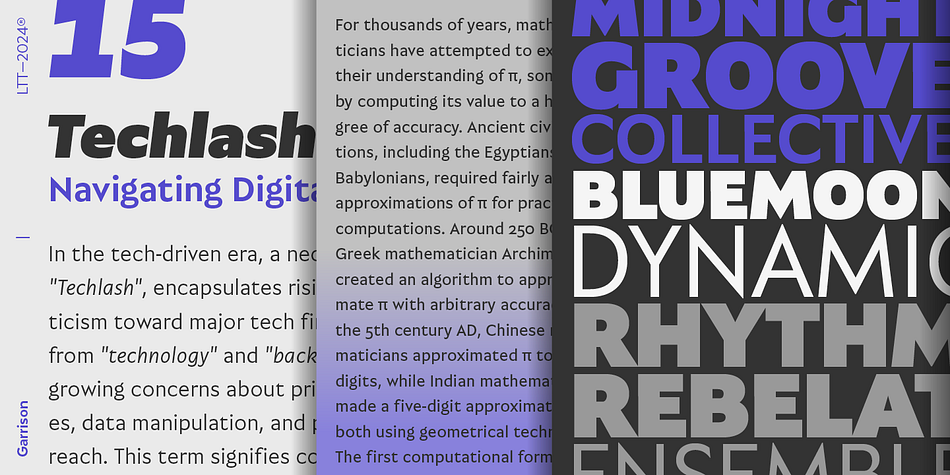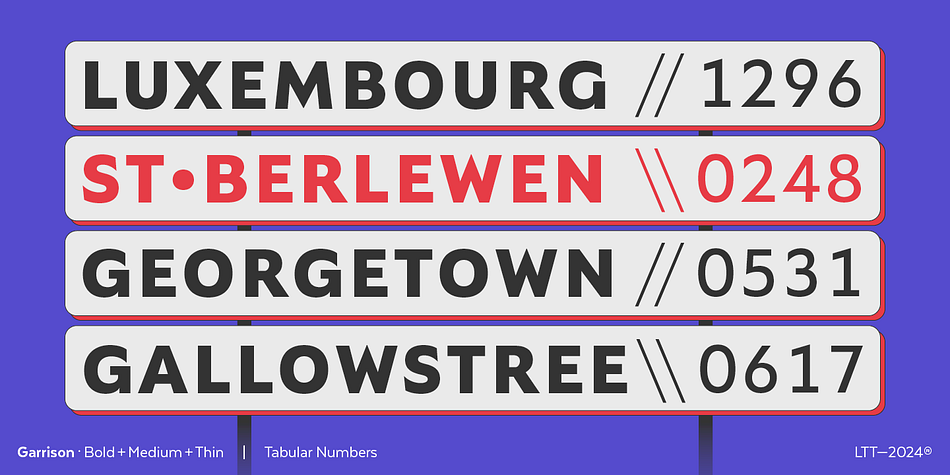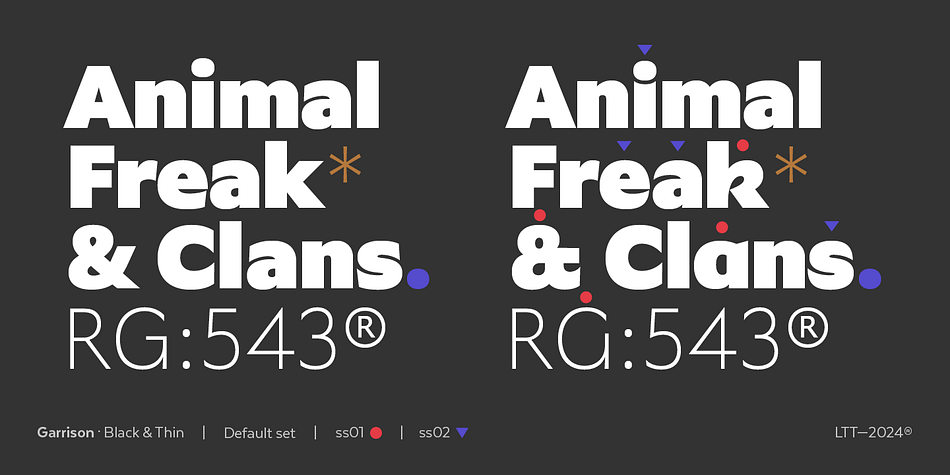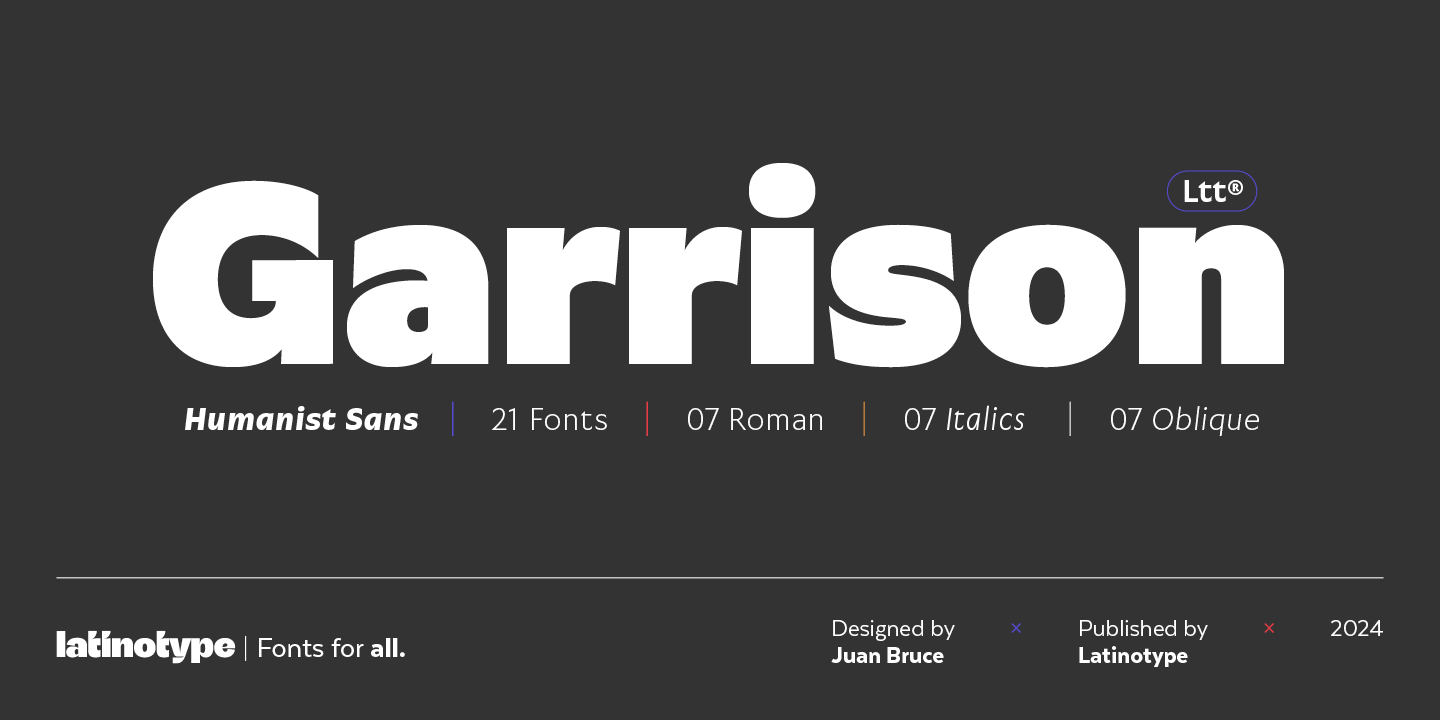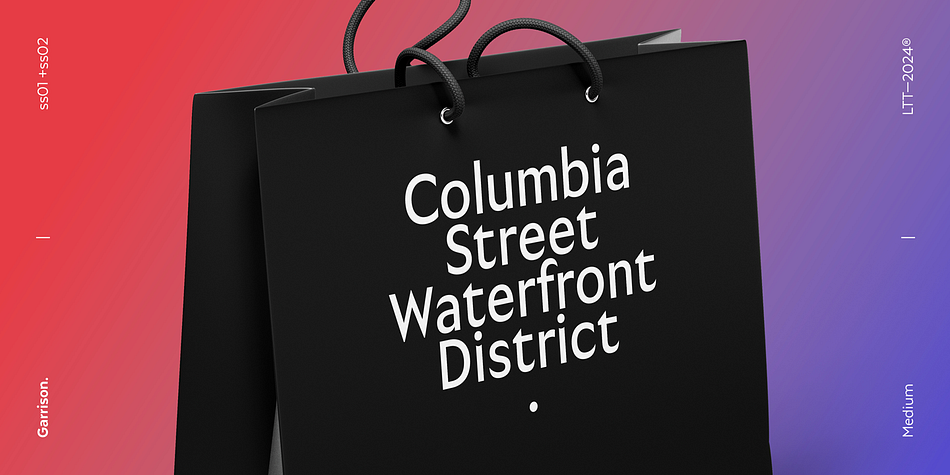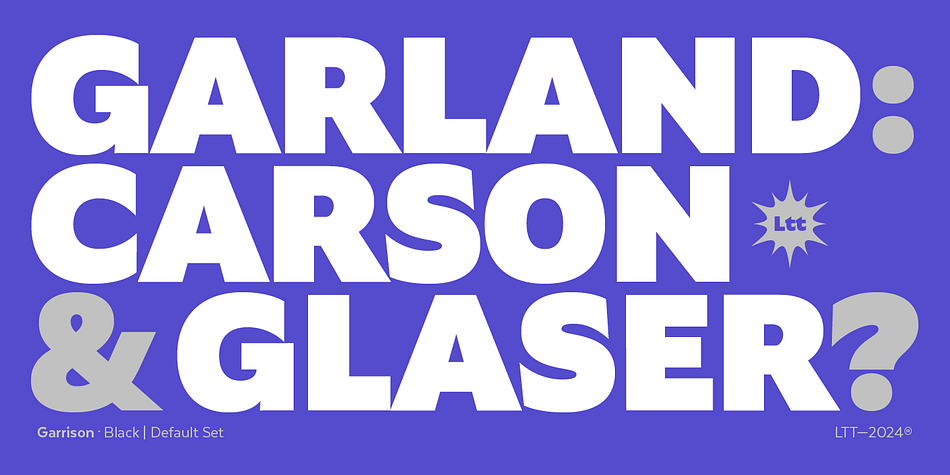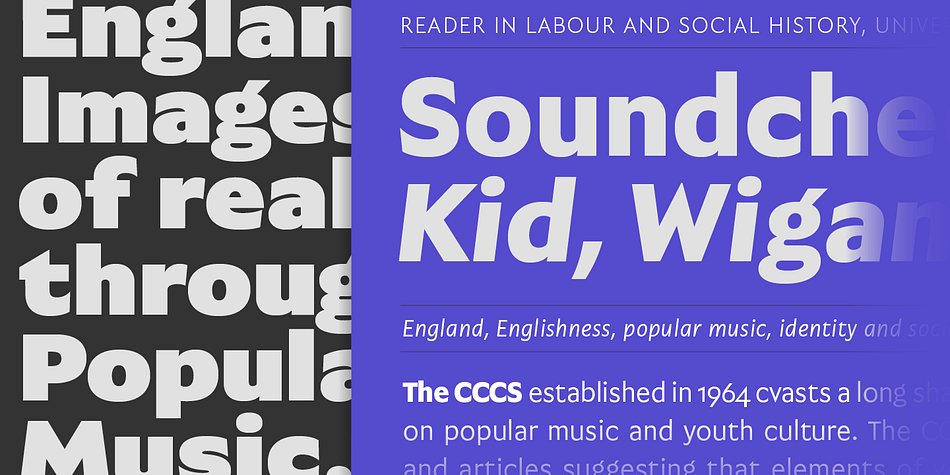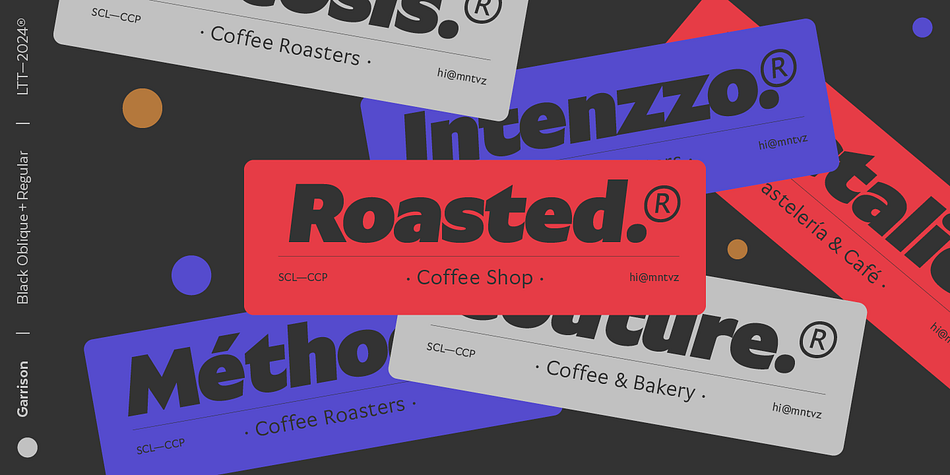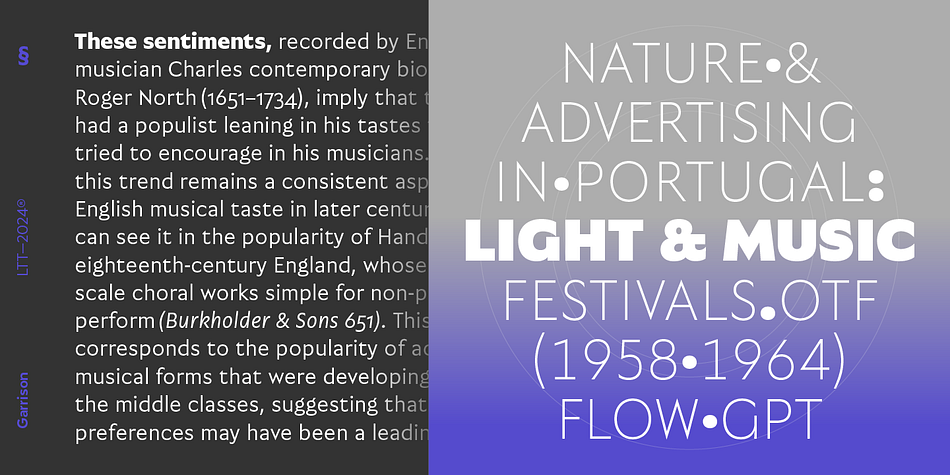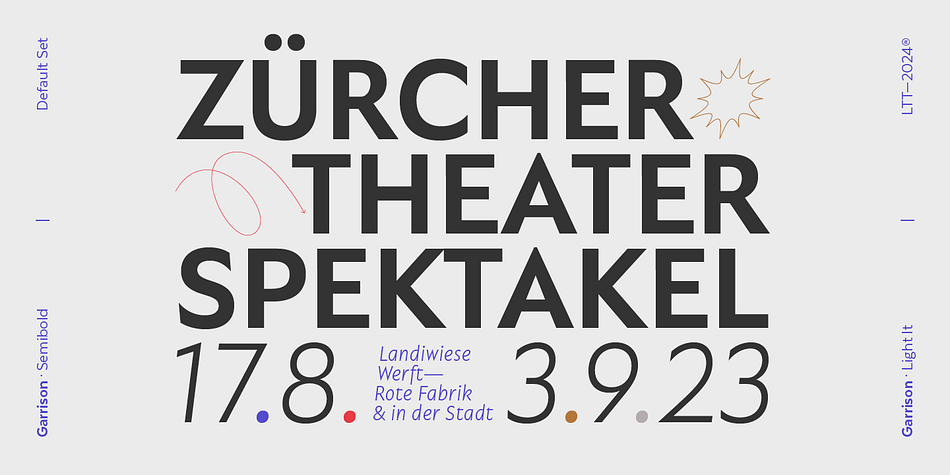
Garrison
Garrison is a sans serif font family. This typeface has twenty-one styles and was published by Latinotype.
Garrison is a contemporary sans serif that offers a straightforward interpretation of the English humanist sans, gently blending rigid tones over a warm structure. It’s available in 7 weights and it comes with a duo-italic set; on the one hand the Oblique complements your text as the slanted version of the Regular, and the smooth, flowing italic will make your written piece stand out brightly. This simple and carefully crafted typeface, with traits flirting with geometry, becomes a powerful workhorse. Its versatility makes it ideal for both paragraphs and bigger typesettings, a great choice for branding, signage, editorial, and more.